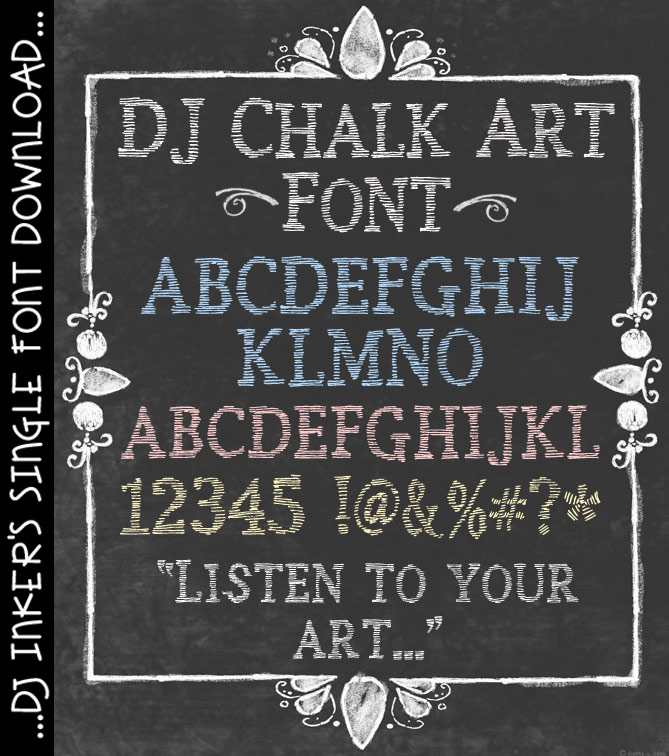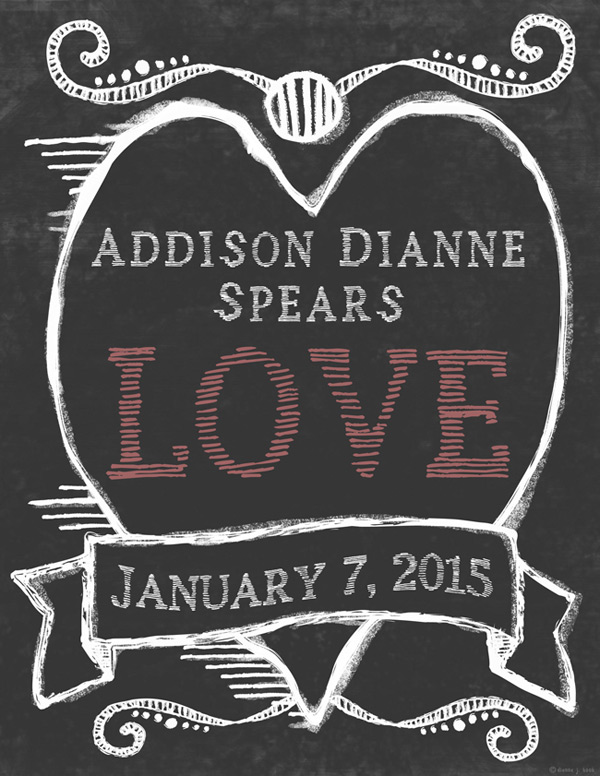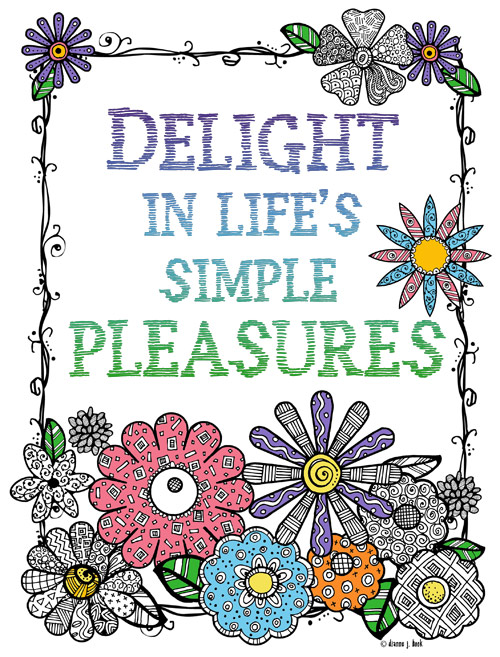
DJ Chalk Art will help you add bold texture and vintage flair to your lettering. This font looks lovely in white over dark backgrounds and chalkboards... or create a cool 'etched' look when you type in dark, inky colors. Perfect for home, school, crafting and decorating.